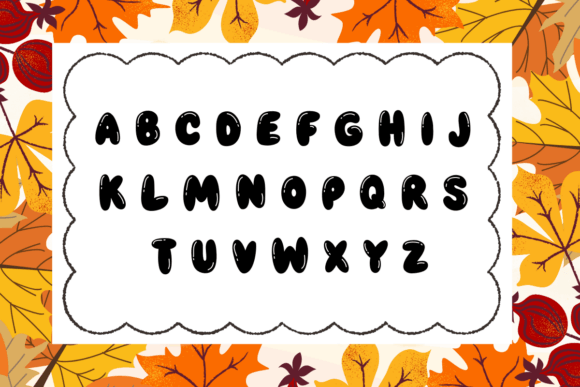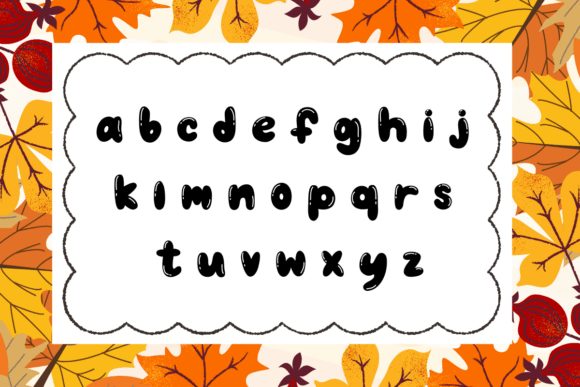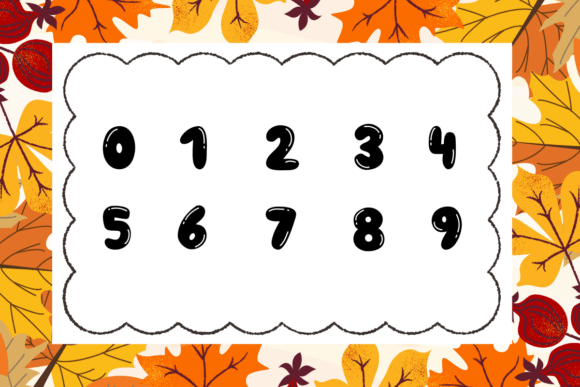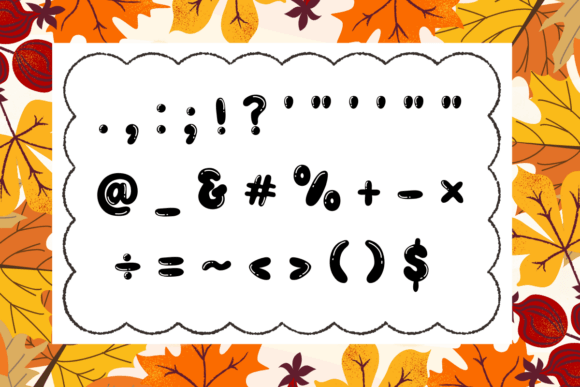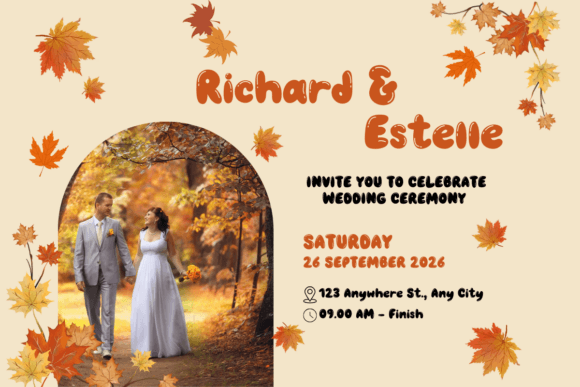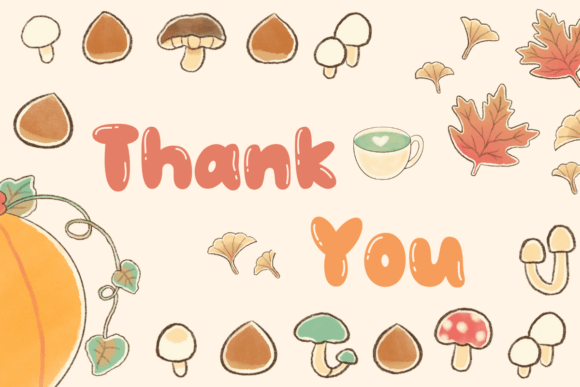
Introducing Fall Font: The Perfect Handwritten Font for Your Creative Projects
As the seasons change and the leaves start to fall, we’re excited to introduce Fall Font, a beautiful handwritten font that’s perfect for a wide range of creative projects. Whether you’re a designer, crafter, or simply someone who loves to write, Fall Font is a versatile and charming font that’s sure to add a personal touch to your work.
What is Fall Font?
Fall Font is a handwritten font that’s designed to mimic the look and feel of handwritten text. With its flowing curves and natural imperfections, Fall Font has a warm and inviting feel that’s perfect for a variety of applications. Whether you’re taking notes, writing a diary, or creating greeting cards, Fall Font is a great choice.
Uses for Fall Font
While Fall Font is perfect for taking notes, writing a diary, or making greeting cards, its uses don’t stop there. You can also use Fall Font for a wide range of other design projects, including:
- Banners: Create eye-catching banners for your website, social media, or marketing materials using Fall Font.
- Content: Add a personal touch to your blog posts, articles, or website content with Fall Font.
- Mugs: Design custom mugs with Fall Font for a unique and thoughtful gift.
- Cards: Create beautiful greeting cards for special occasions using Fall Font.
- Shirts: Design custom t-shirts, hoodies, or other apparel with Fall Font.
- Stationery: Add a touch of elegance to your stationery with Fall Font.
- Social media posts: Make your social media posts stand out with Fall Font.
Why Choose Fall Font?
There are many reasons why Fall Font is a great choice for your design projects. Here are just a few:
- Unique and personal**: Fall Font has a unique and personal feel that’s perfect for creating handmade or bespoke designs.
- Versatile**: Fall Font can be used for a wide range of design projects, from notes and diaries to banners and social media posts.
- Elegant and sophisticated**: Despite its handwritten nature, Fall Font has an elegant and sophisticated feel that’s perfect for more formal designs.
- Easy to read**: Fall Font is easy to read, even at small sizes, making it perfect for designs where text needs to be legible.
Tips for Using Fall Font
Here are a few tips for getting the most out of Fall Font:
- Experiment with sizes and colors**: Fall Font looks great in a range of sizes and colors, so don’t be afraid to experiment and find the combination that works best for your design.
- Pair with other fonts**: Fall Font pairs well with other fonts, so try combining it with a bold or sans-serif font for added visual interest.
- Add embellishments**: Consider adding embellishments, such as flourishes or illustrations, to give your design an extra touch of personality.
Fall Font is a beautiful and versatile handwritten font that’s perfect for a wide range of creative projects. With its unique and personal feel, elegant and sophisticated style, and ease of use, Fall Font is a great choice for designers, crafters, and anyone who loves to write. So why not give Fall Font a try and see how it can add a touch of warmth and personality to your designs?
Whether you’re creating notes, diaries, greeting cards, or more, Fall Font is the perfect choice. So go ahead, get creative, and make the most of this amazing font!